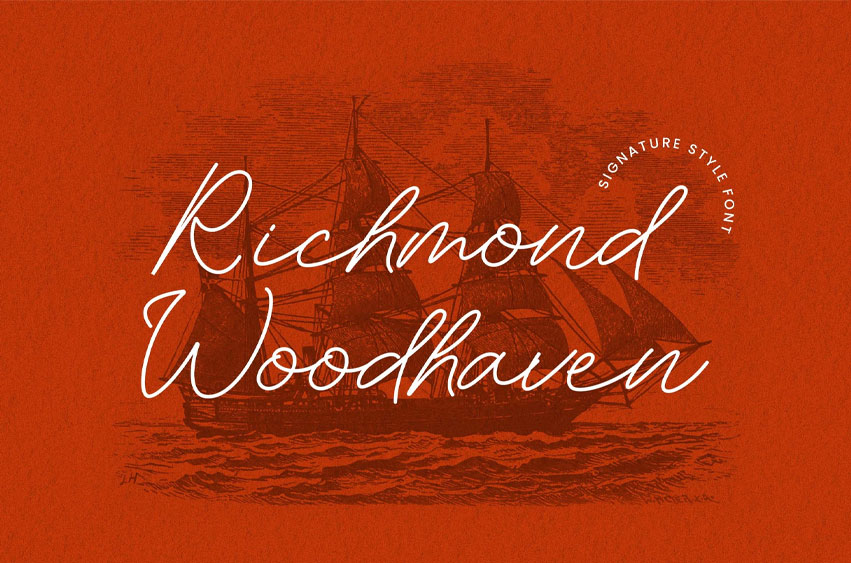
Richmond Woodhaven Font
Richmond Woodhaven Font Signature Font emerges as an exquisitely crafted handwritten typographic system that masterfully captures the authentic character of refined personal penmanship with thoughtful contemporary functionality. This distinguished script family provides designers with a genuinely expressive toolkit that balances natural calligraphic flow with practical implementation, enabling intimate, character-rich communication for projects seeking to establish genuine personal connections. The font’s meticulously developed letterforms feature organically variable stroke weights and naturally inconsistent baselines, creating a convincingly authentic writing rhythm that conveys thoughtful individuality while maintaining surprising versatility across diverse applications.
Developed through careful study of traditional penmanship techniques and modern calligraphic expression, Richmond Woodhaven achieves a distinctive personality that feels simultaneously personal and professionally refined. Its deliberately varied connecting strokes and thoughtfully inconsistent character forms create a cohesive visual texture that enhances authenticity while projecting sophisticated confidence. The typeface’s development prioritizes the delicate balance between expressive character and practical application, with optimized forms that maintain their handcrafted quality across contexts from intimate correspondence to brand signatures.
Richmond Woodhaven Signature Font demonstrates particular excellence in environments where brands and projects seek to communicate with genuine personality, refined authenticity, and distinctive character. Its natural quality makes it ideal for boutique hospitality brands, artisanal product lines, wedding stationery, personal branding, and premium experiences that value individualized expression. The font’s ability to convey thoughtful craftsmanship while maintaining design sophistication makes it particularly valuable for projects requiring a balance of personal warmth and professional execution, offering designers a typographic voice that resonates with audiences appreciating both handcrafted quality and contemporary refinement.
Richmond Woodhaven Signature Font Features:
• Authentic Handwritten Architecture with Natural Stroke Variation
• Organically Variable Character Forms for Convincing Authenticity
• Comprehensive Alternate Character Set for Customized Expression
• Contextual Alternates Ensuring Natural Letter Combinations
• Multiple Connecting Styles for Varied Handwriting Appearance
• Thoughtfully Designed Swashes and Flourishes for Signature Impact
• Carefully Balanced Ink Flow Simulation for Realistic Rendering
• Natural Baseline Variation Replicating Genuine Handwriting
• Specialized Ligatures Enhancing Authentic Writing Character
• Optimized for Both Display and Medium-Length Text Applications
Richmond Woodhaven Signature Font represents a significant achievement in handwritten typography, offering creators a sophisticated system that delivers both distinctive personality and practical application in premium contexts. Its thoughtful development ensures that its authentic character remains functional while maintaining the refined, personal aesthetic that enhances genuine communication. For designers and brands seeking typography that projects thoughtful individuality, crafted quality and sophisticated personality, this font provides an essential resource that embraces the timeless appeal of personal penmanship while offering the technical refinement required for contemporary design implementation.